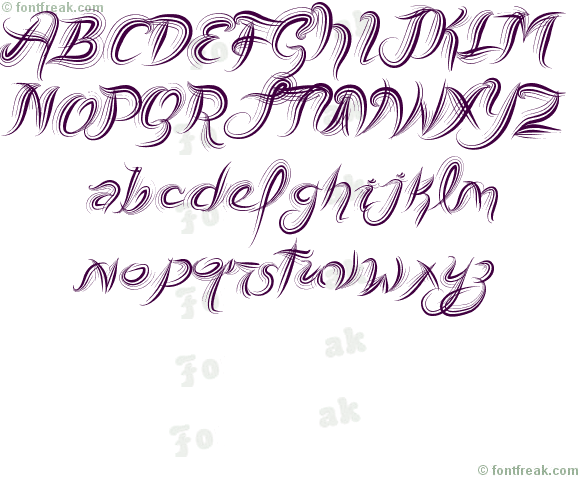
Vtks Fresh Mint
Vtks Fresh Mint is a captivating decorative font designed by Douglas Vitkauskas, characterized by its playful and whimsical style. This font falls under the category of decorative typefaces, making it an excellent choice for projects that require a touch of creativity and flair. The design features an intricate combination of flowing curves and delicate strokes, giving it a unique charm that stands out in various applications.
Visually, Vtks Fresh Mint exhibits elegant stroke weights that create a balanced contrast between thick and thin lines. The spacing is thoughtfully arranged, allowing for legibility while maintaining an artistic appearance. Decorative elements, such as playful swirls and flourishes, enhance the overall aesthetic, making it a delightful choice for eye-catching designs.
This font is particularly well-suited for a variety of use cases. It can elevate wedding invitations with its romantic flair, add a fun touch to children’s book covers, and create striking movie posters that demand attention. Additionally, it works beautifully for restaurant menus, allowing for a playful representation of the dining experience. Graphic designers, small business owners, and content creators will find Vtks Fresh Mint to be an invaluable tool in their creative toolkit.